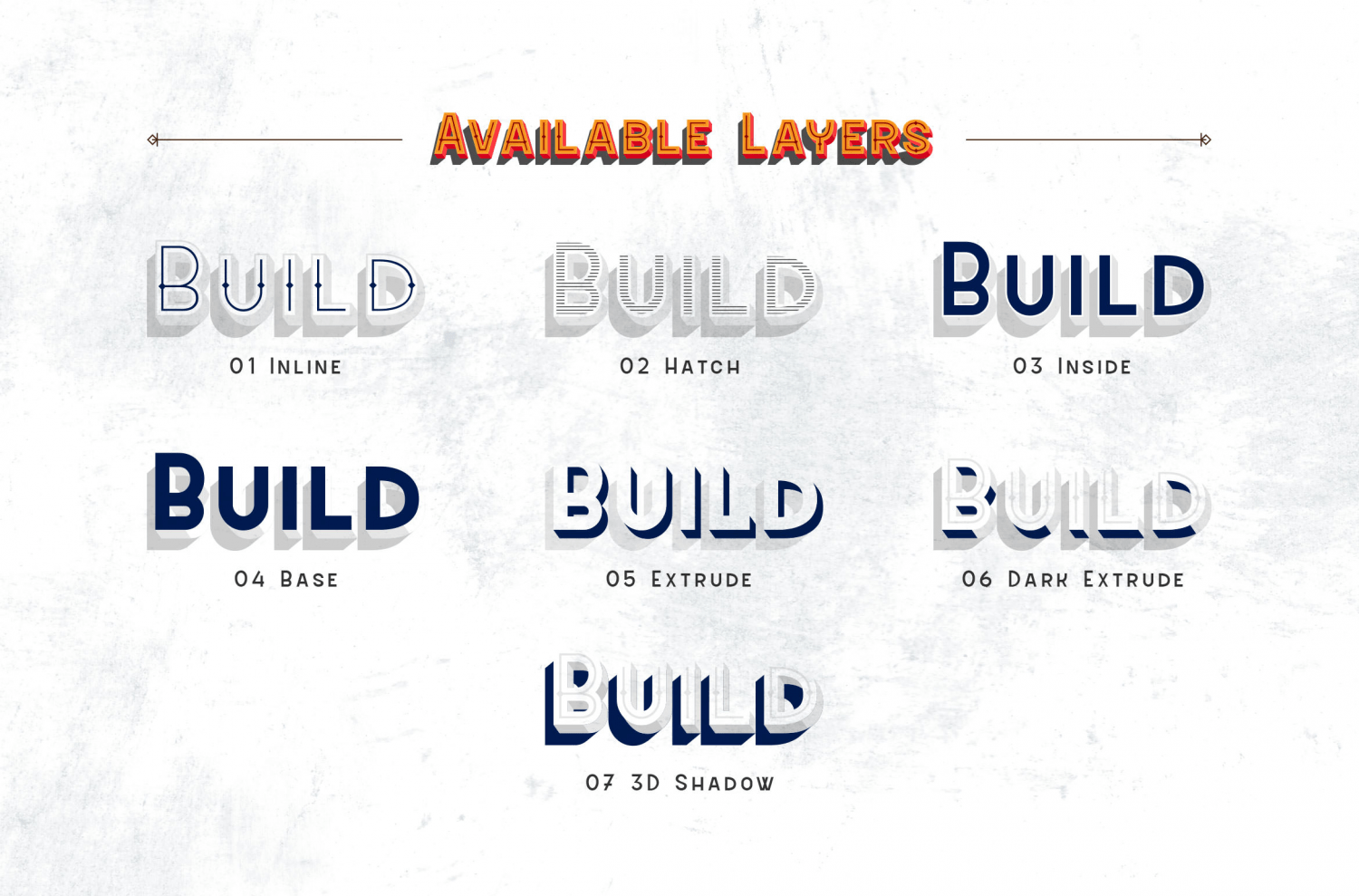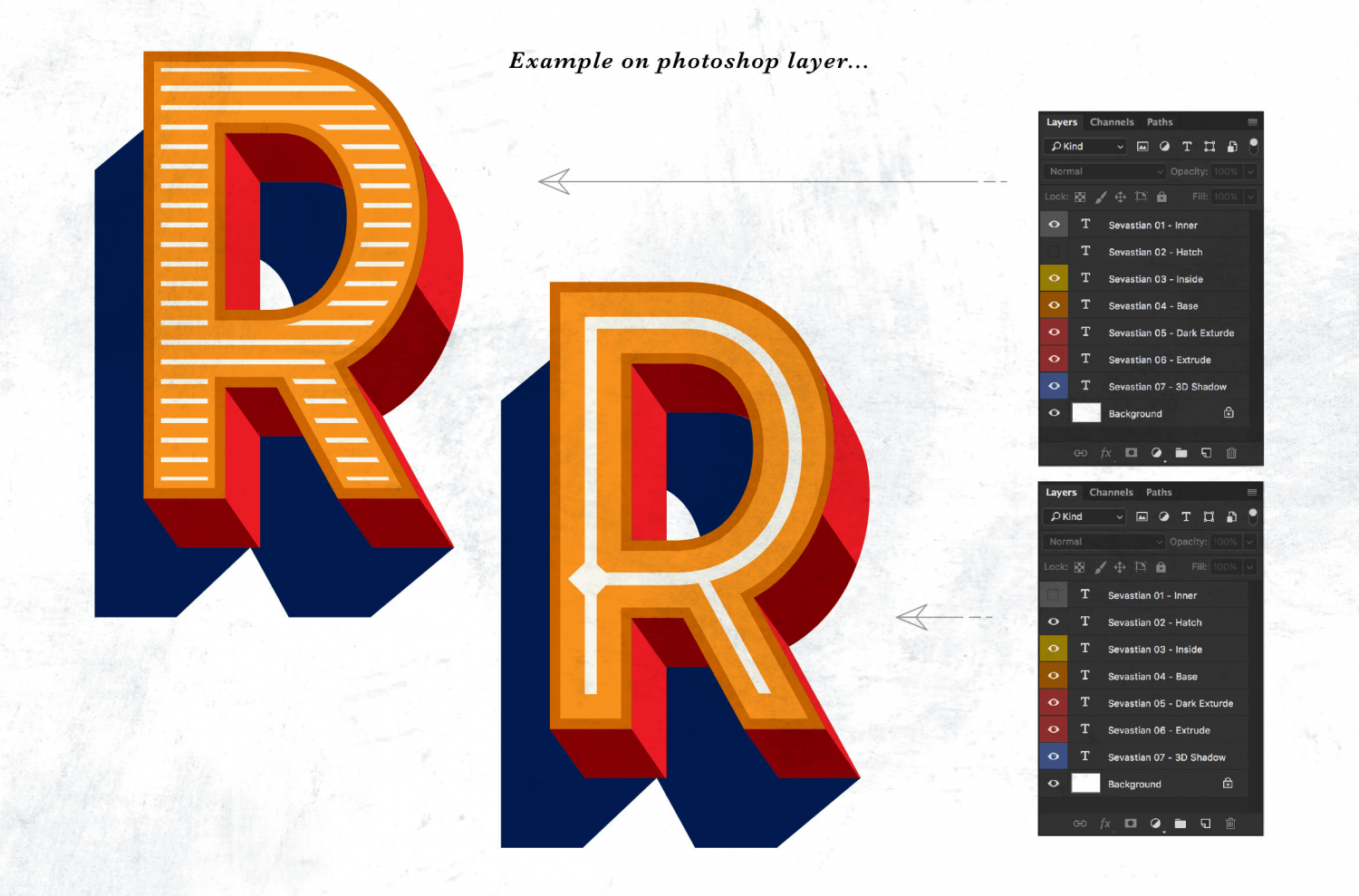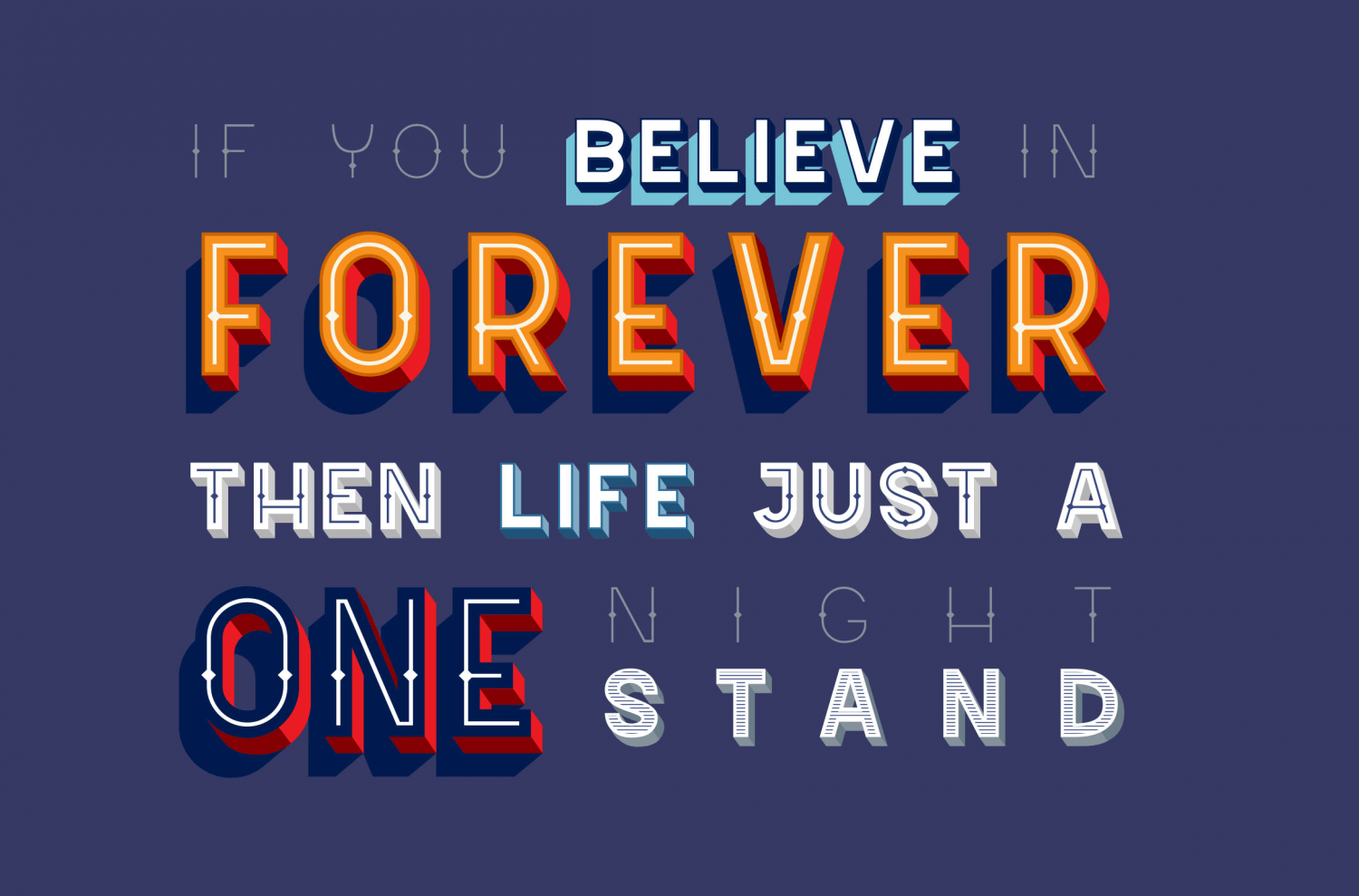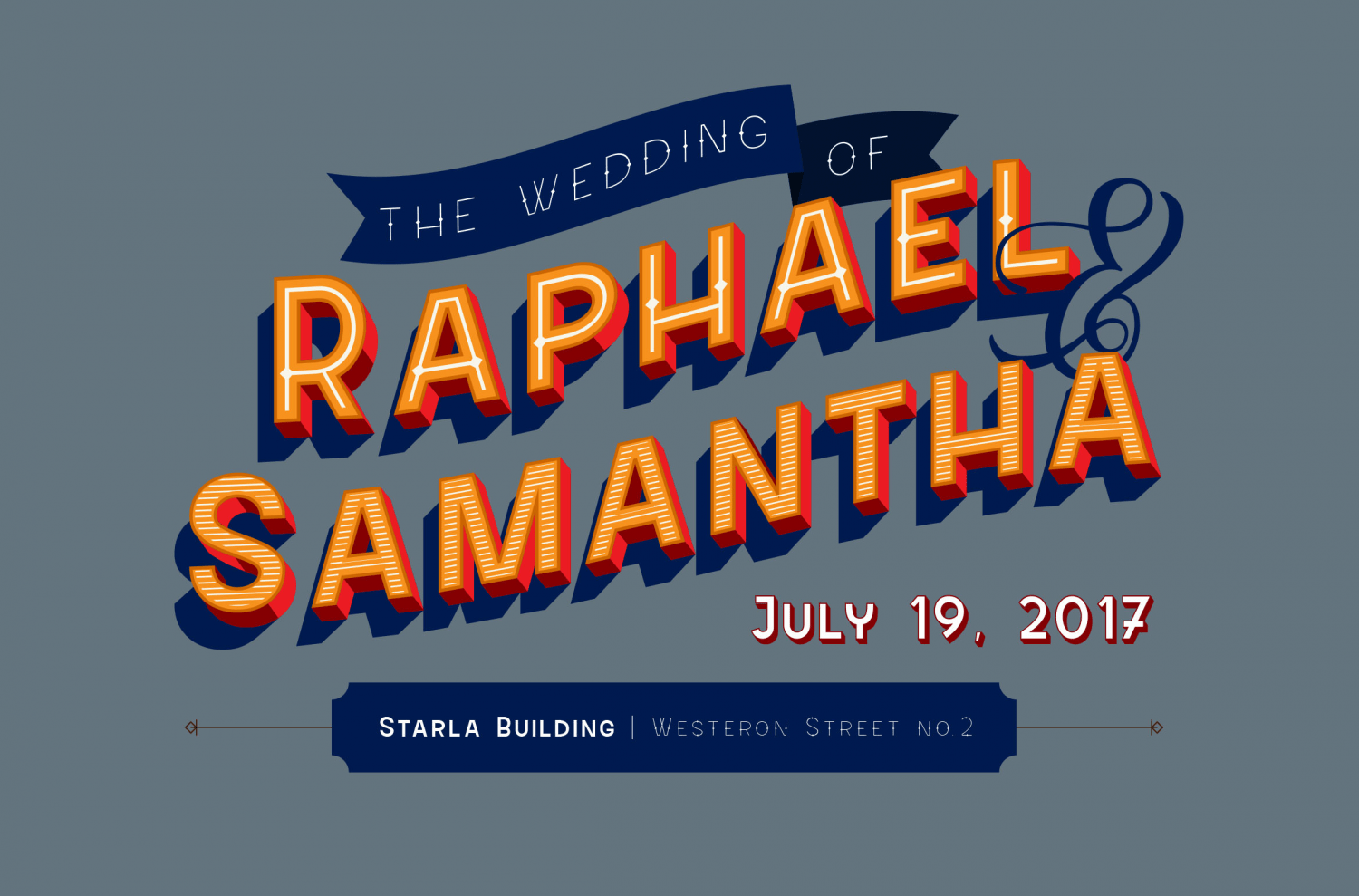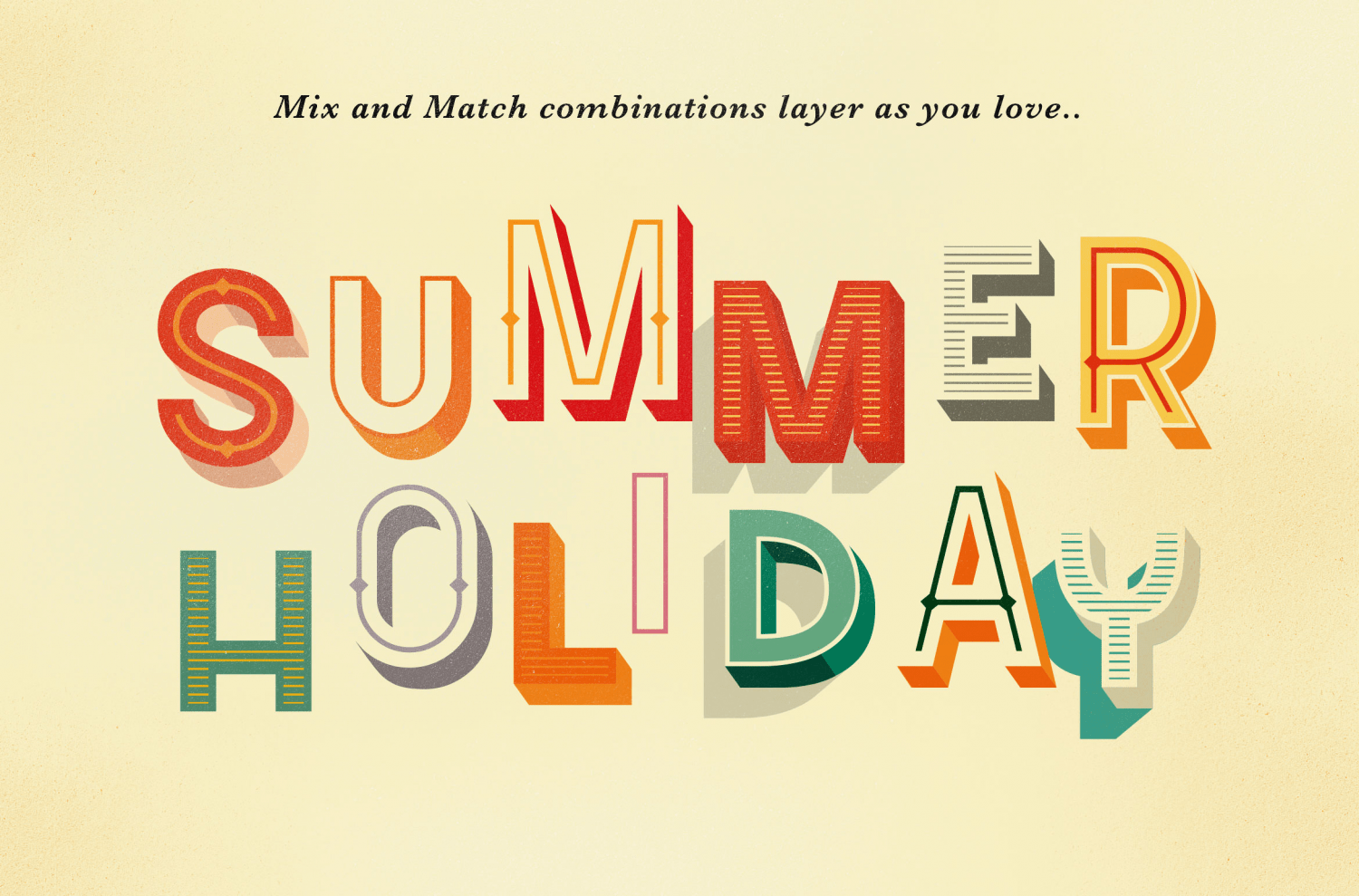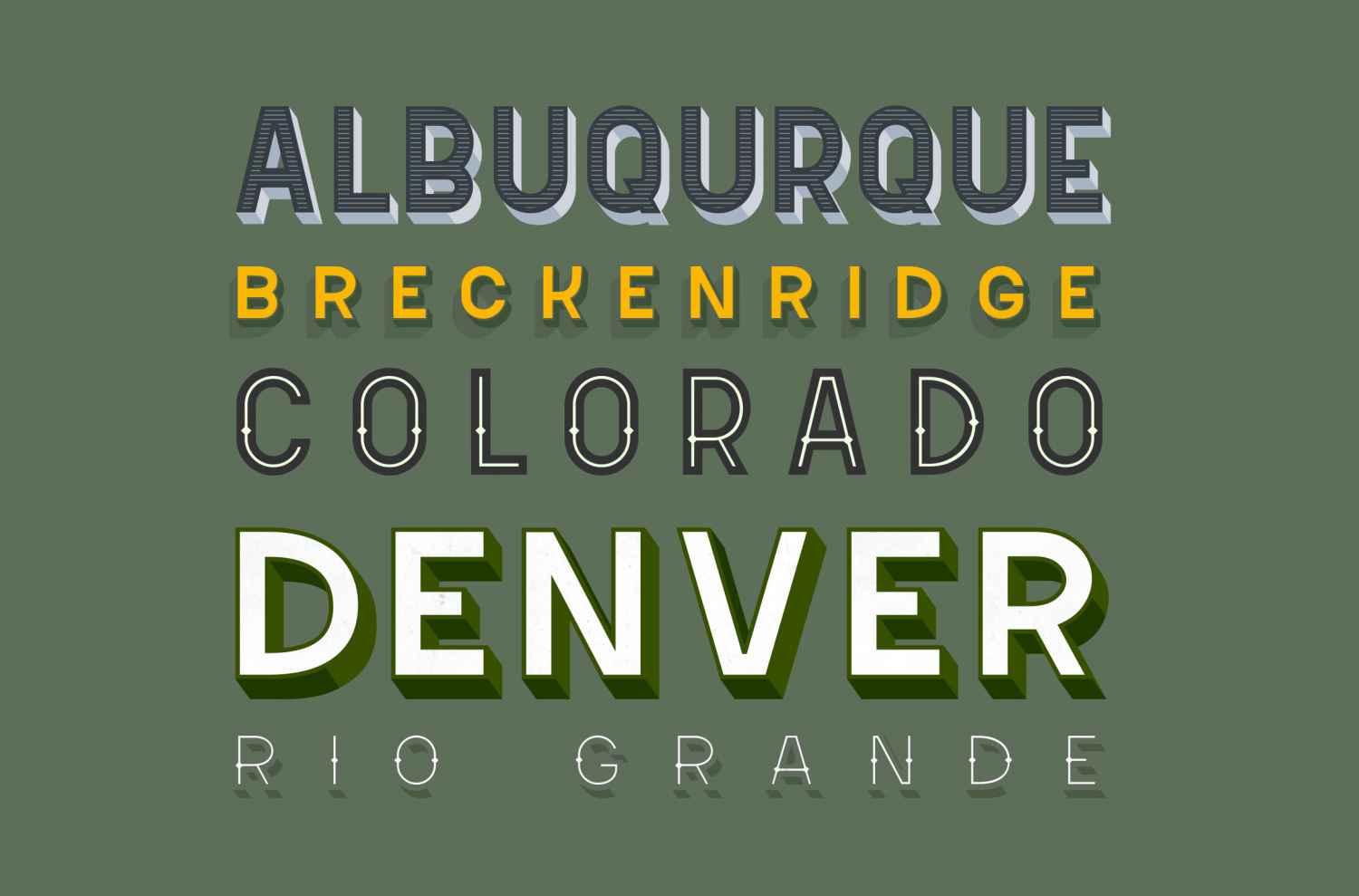
Sevastian
About Sevastian
Imagine that before the digital world wasn\’t exist, Artist or SignPainter made so many beautiful artwork with limited tools. expressing their era, their style and their tradition. Especially on the Typography, they are made their artwork more life by…